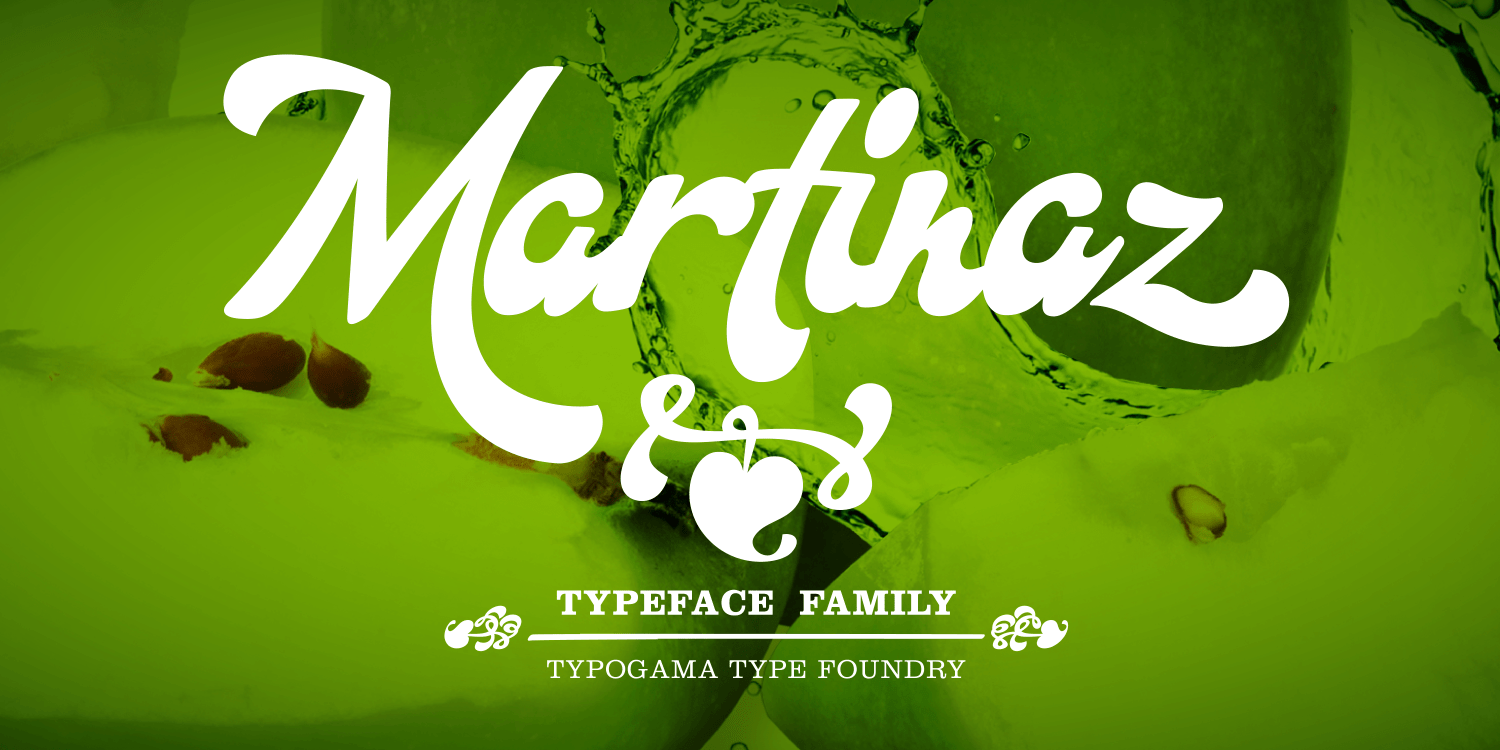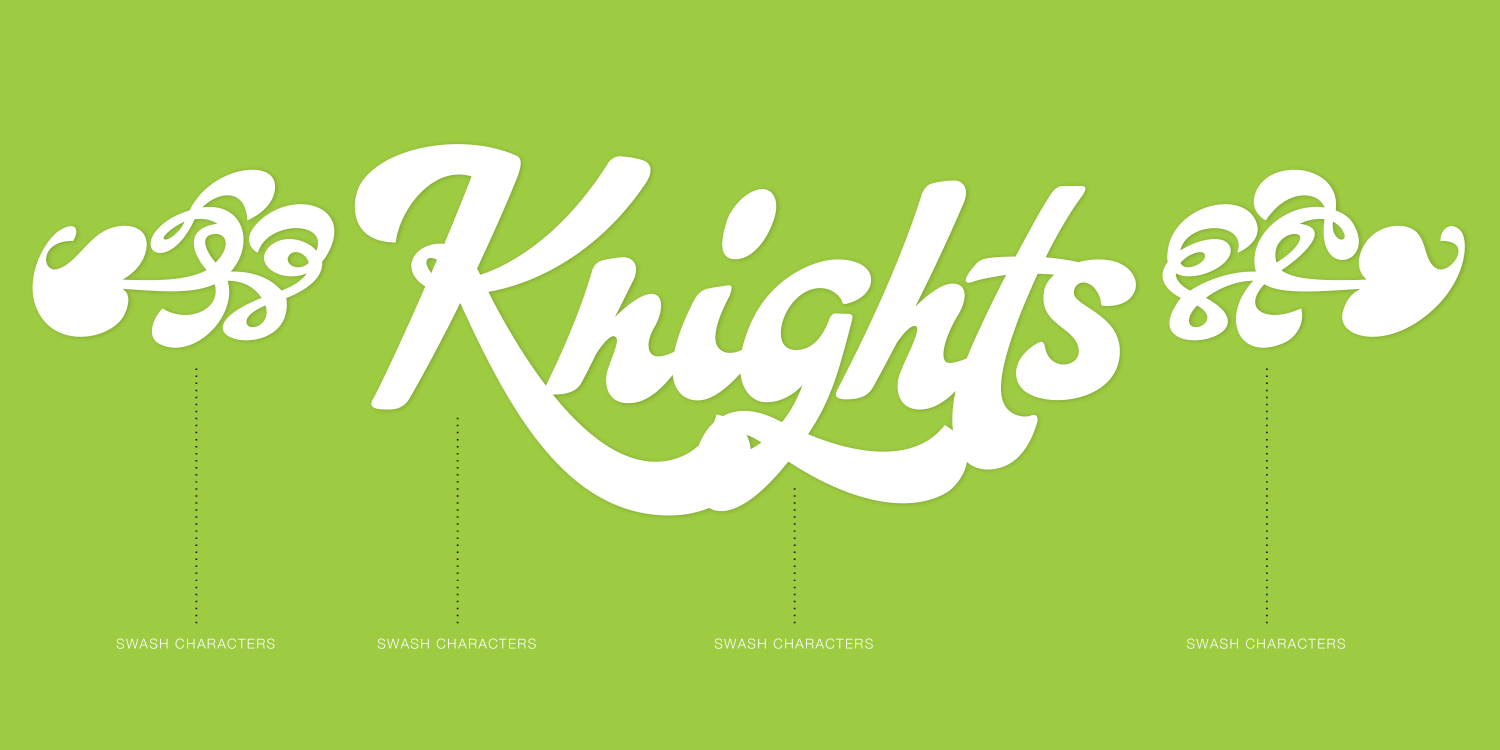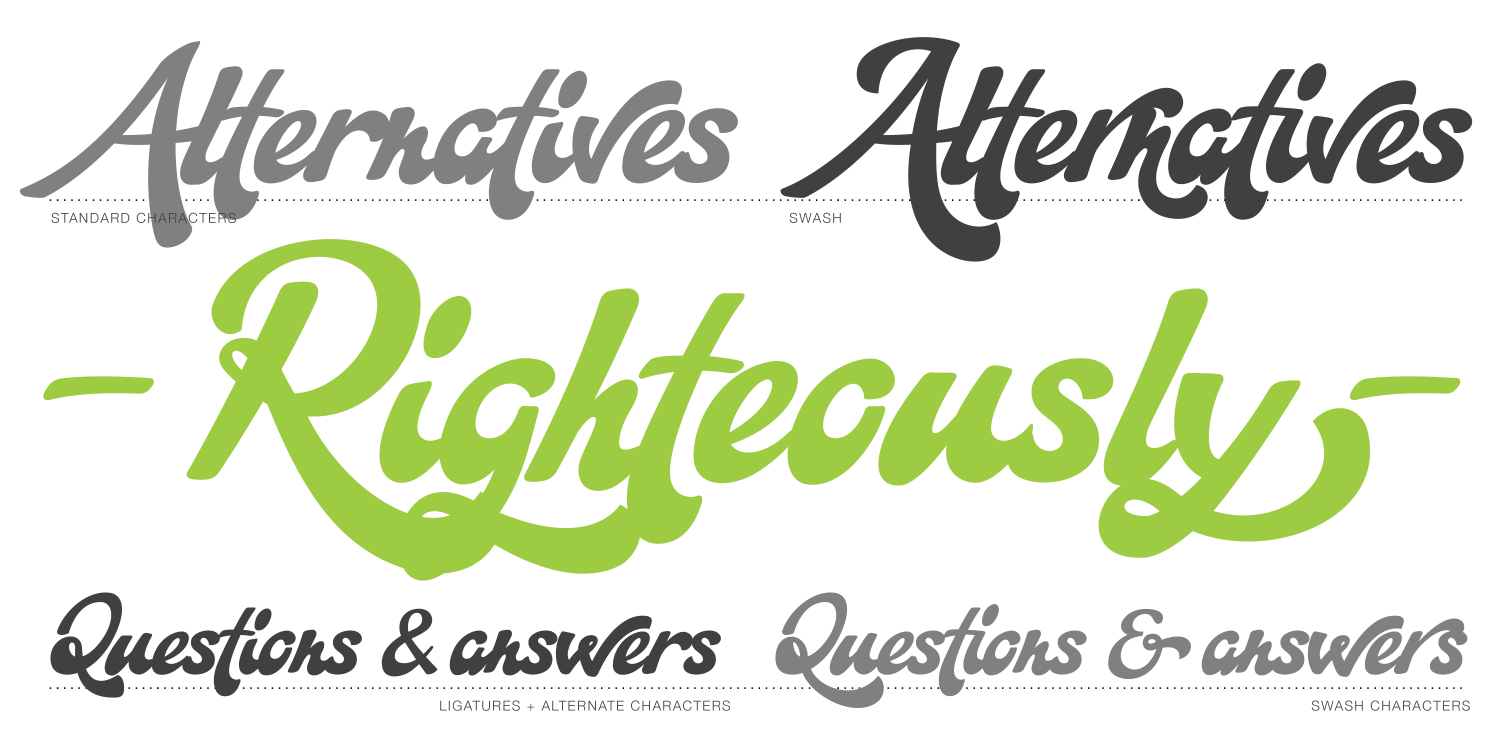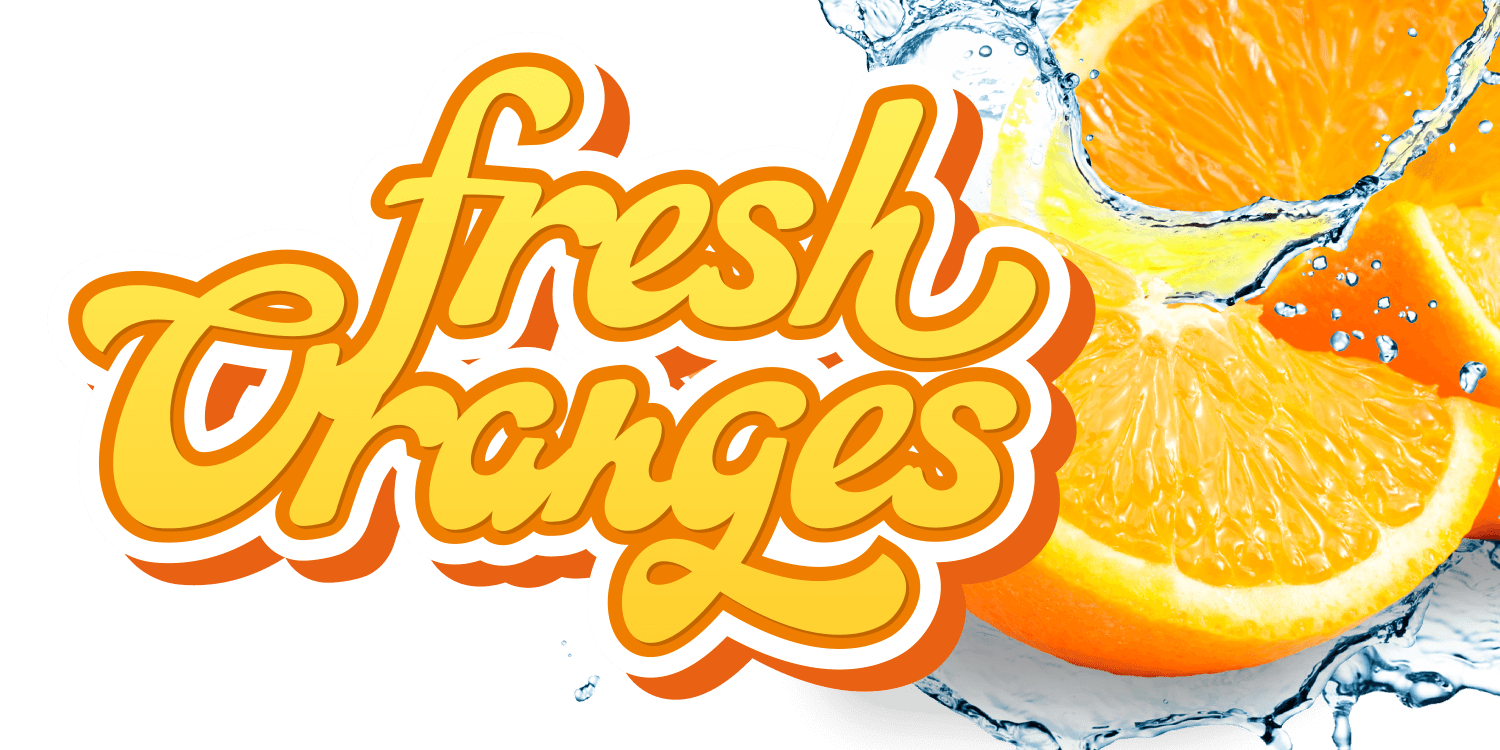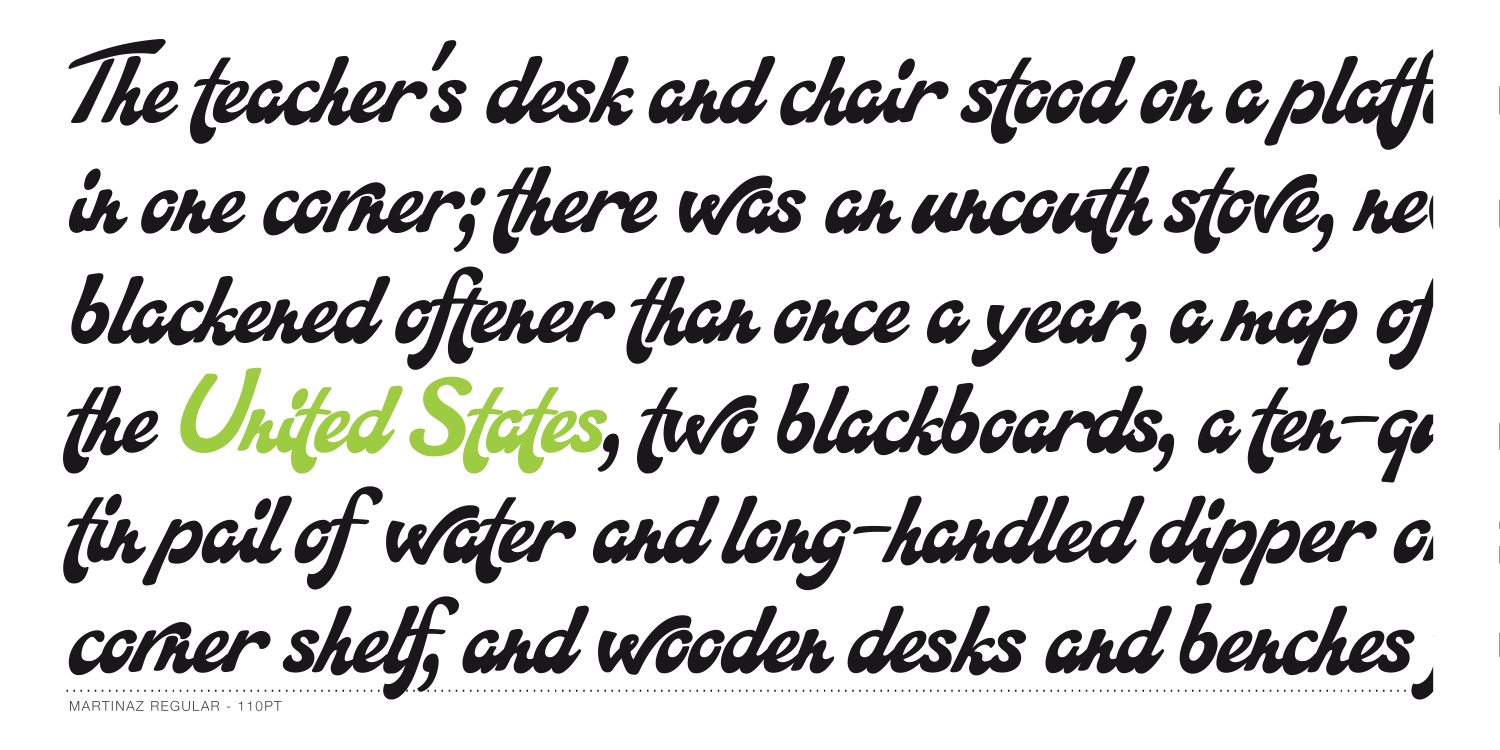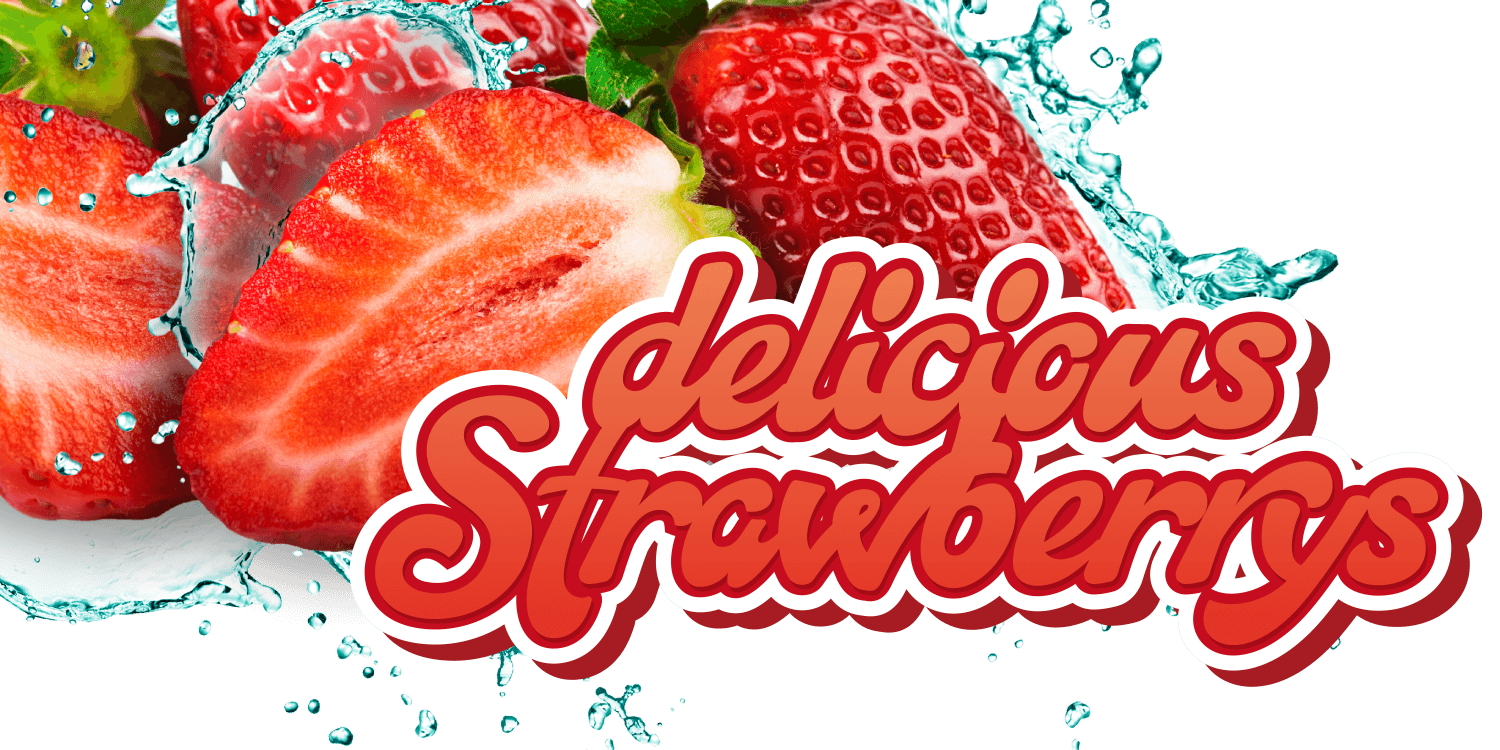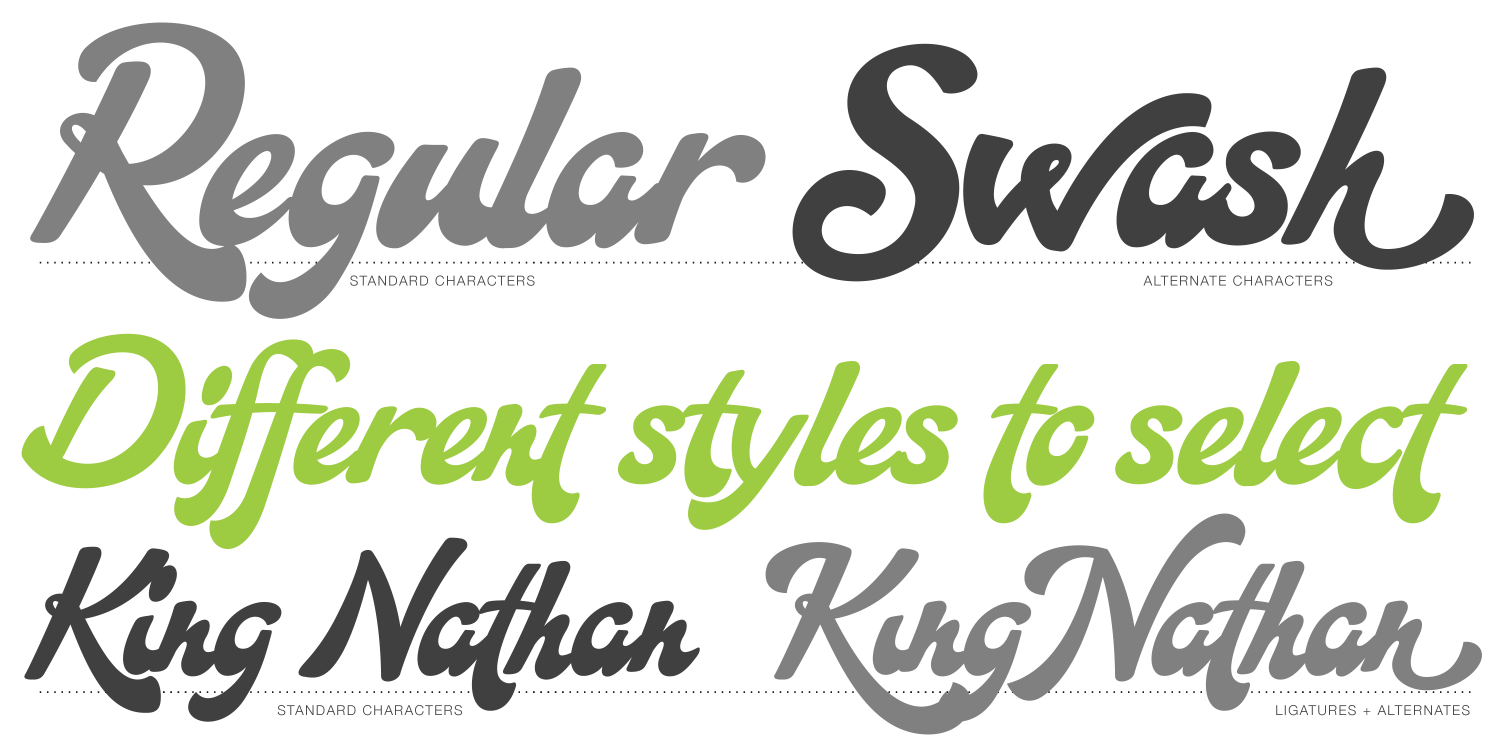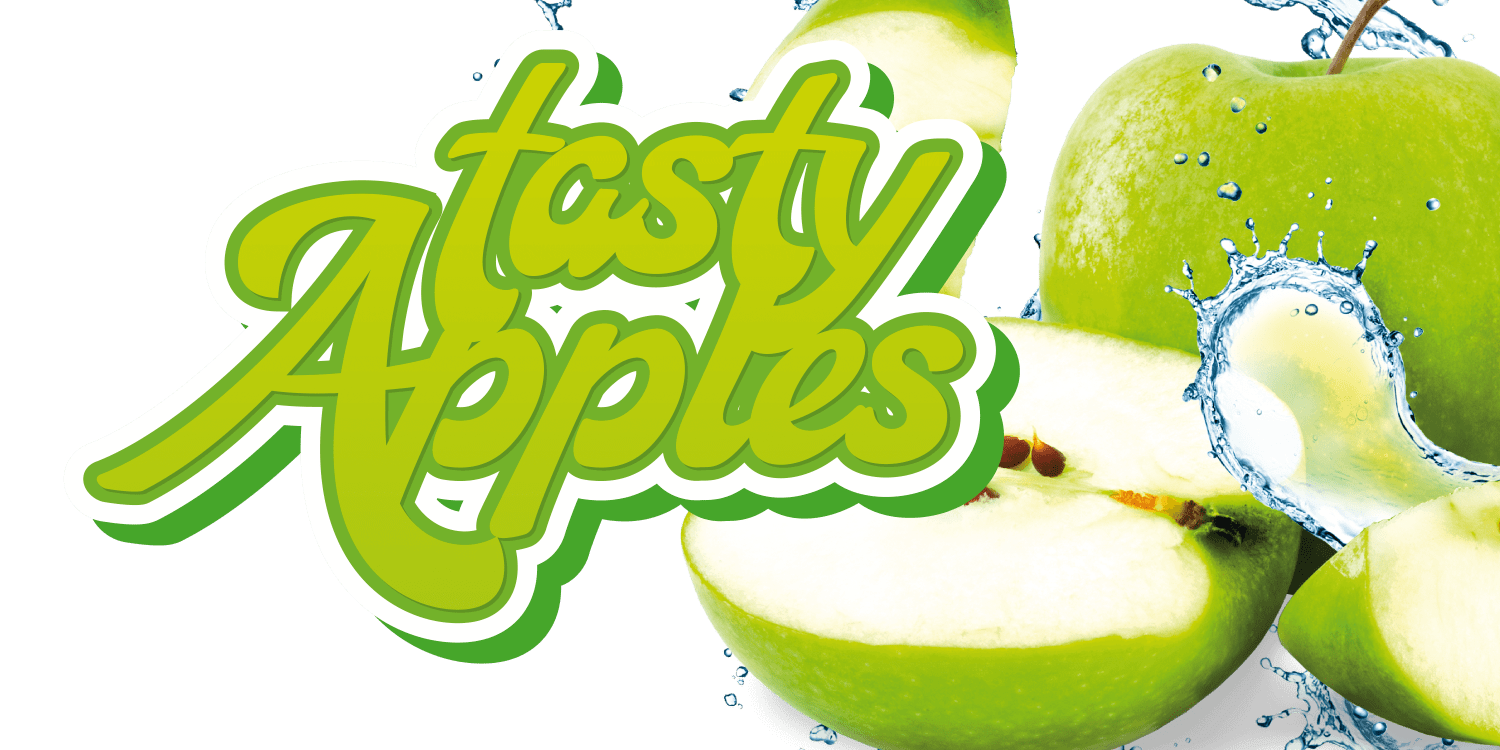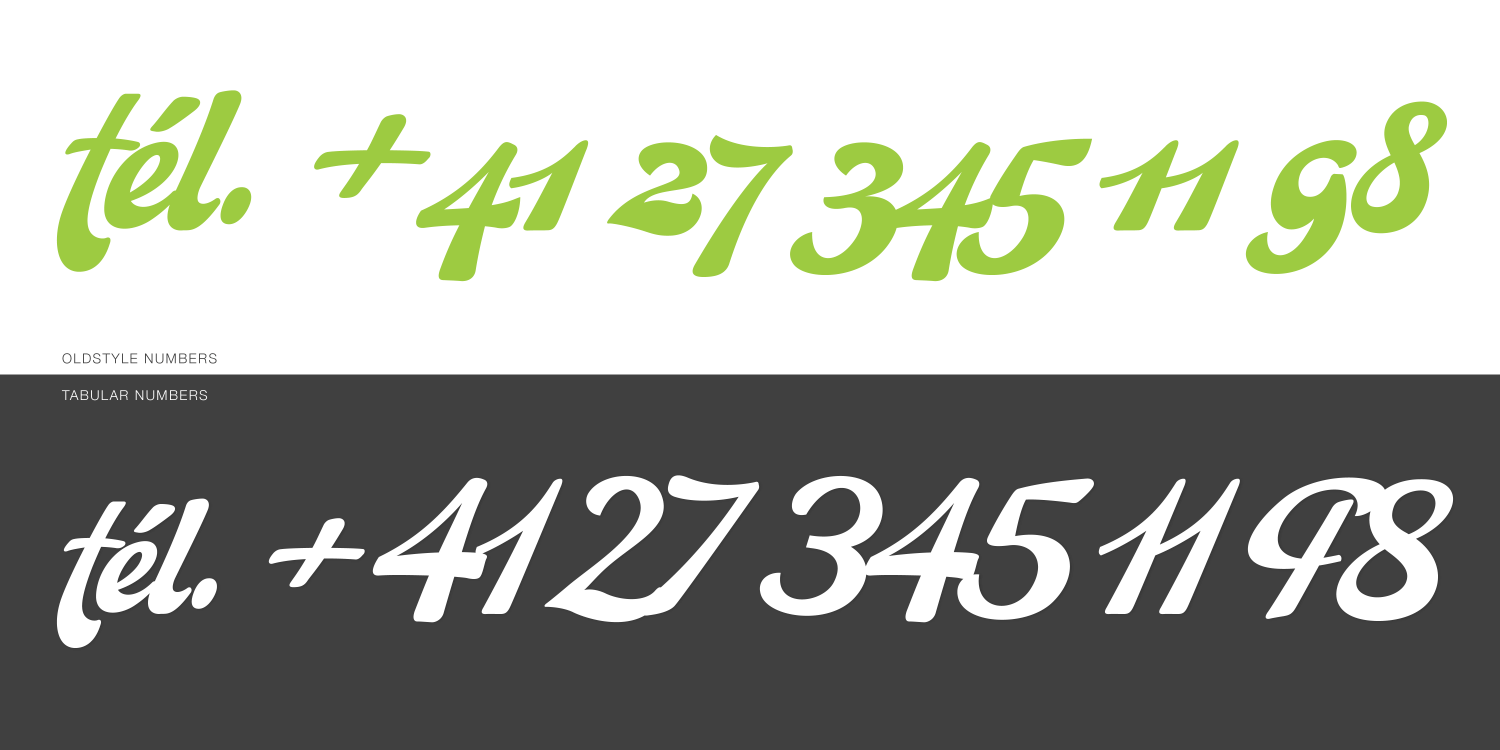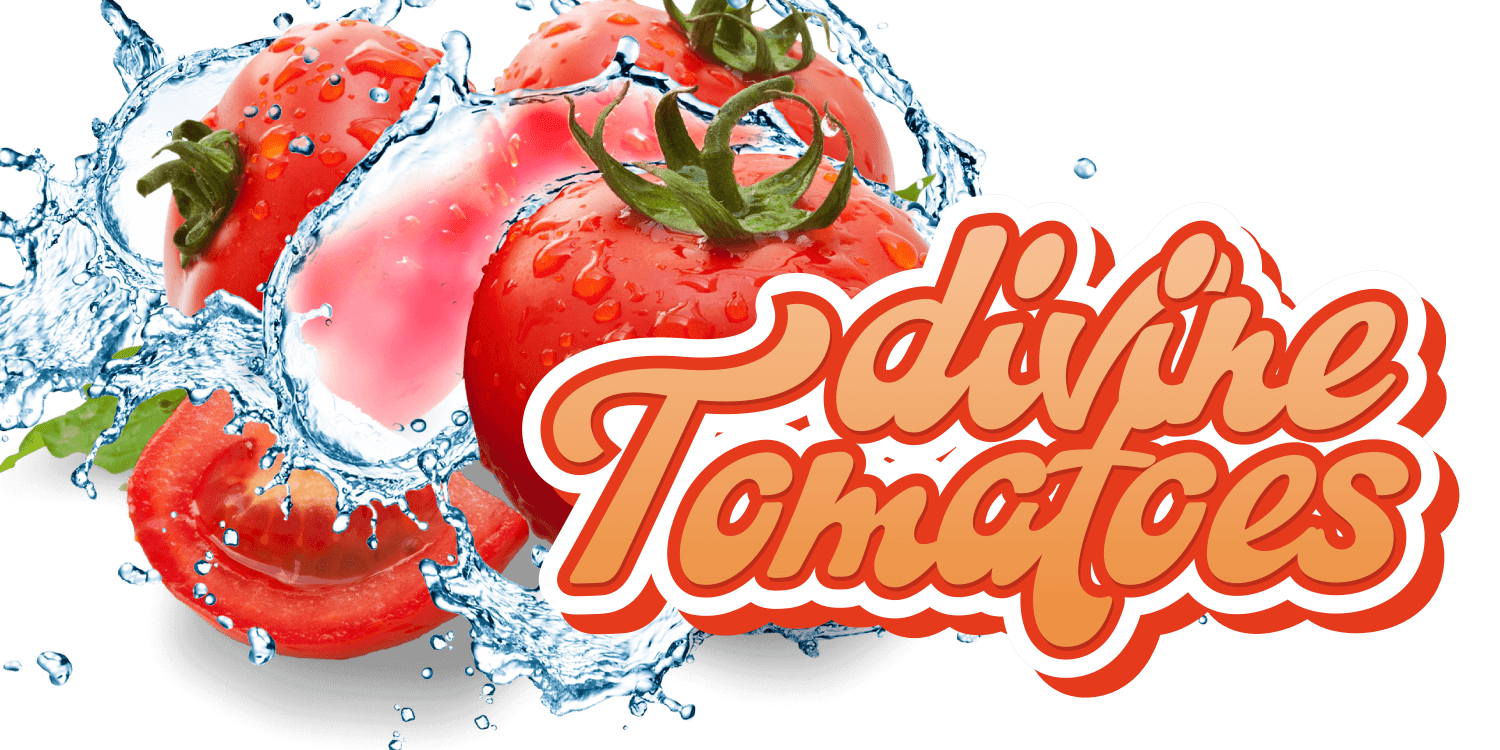
Martinaz
Font Family by Typogama
Martinaz is a retro inspired, bold script typeface created for use in logos, posters or packaging. Through the use of extensive Opentype features, this font offers variable letter combinations that can easily be integrated or mixed. An added feature is the inclusion of a few typographic fleurons that can either be used with the text or as icons in your design.